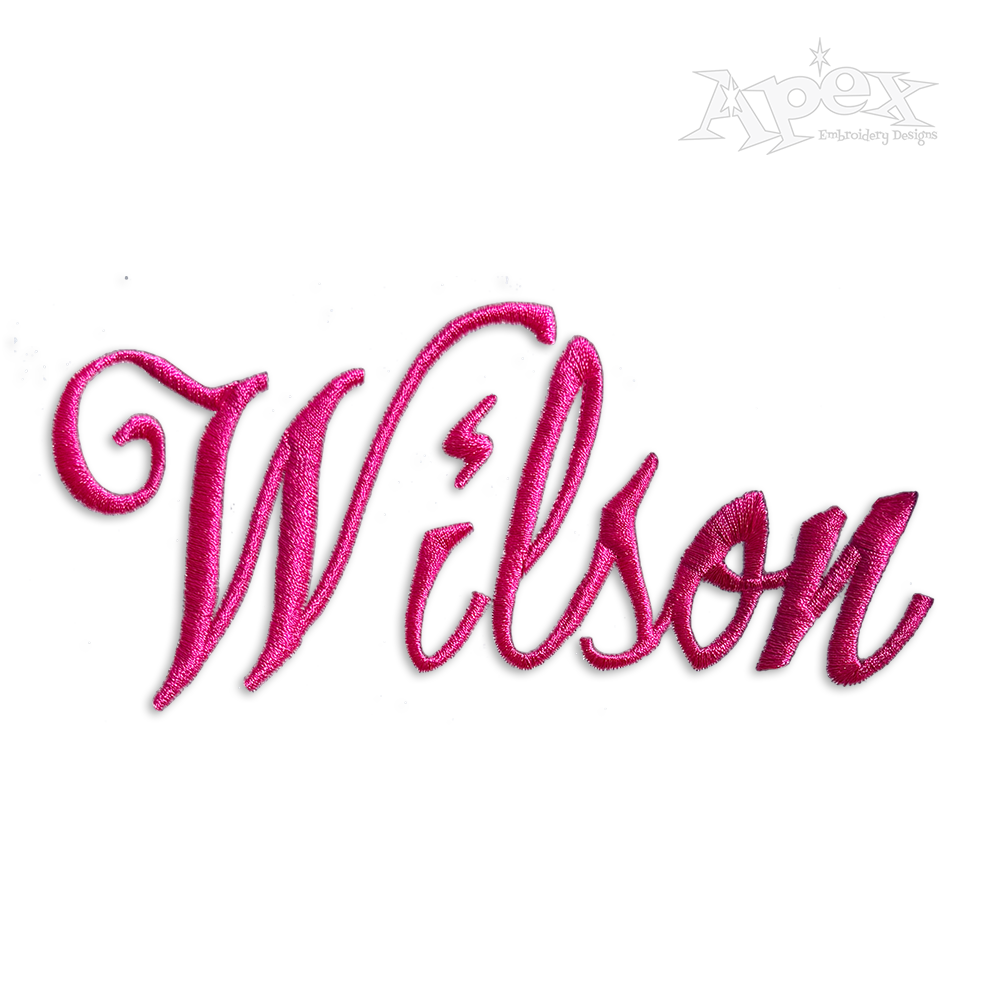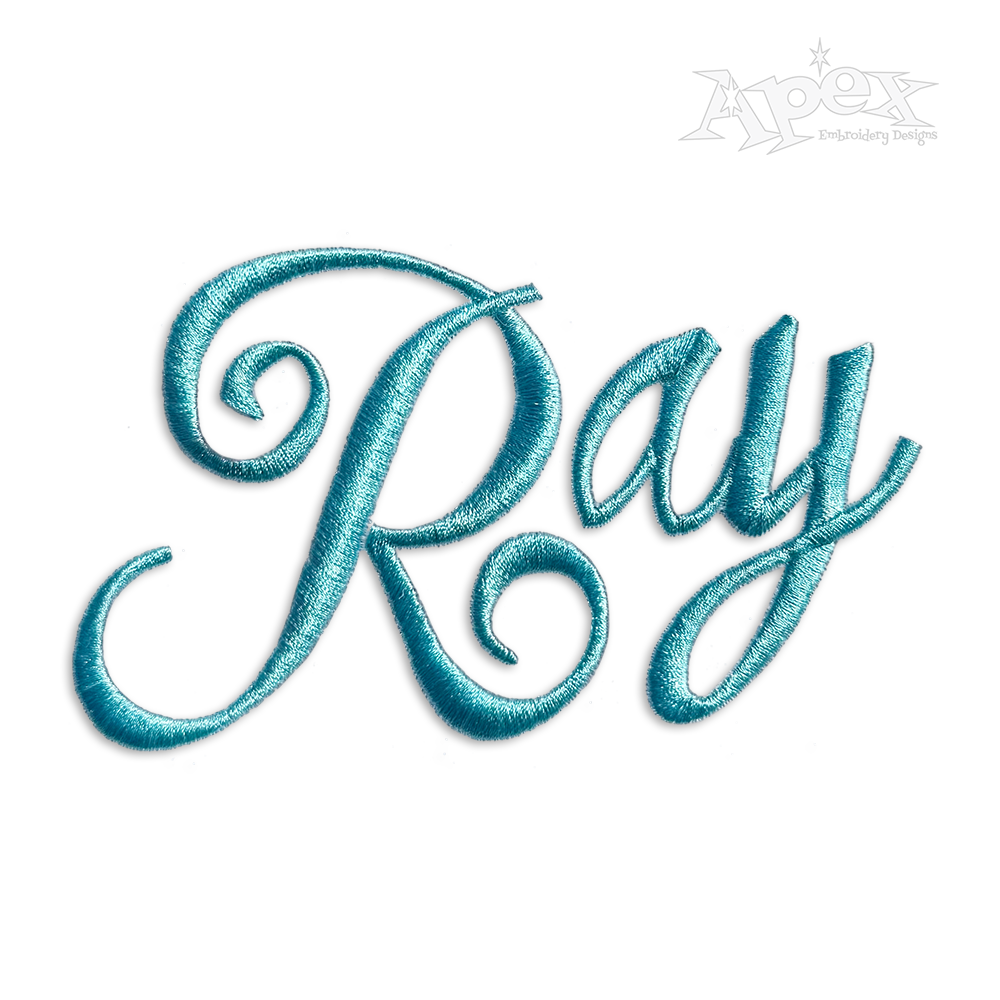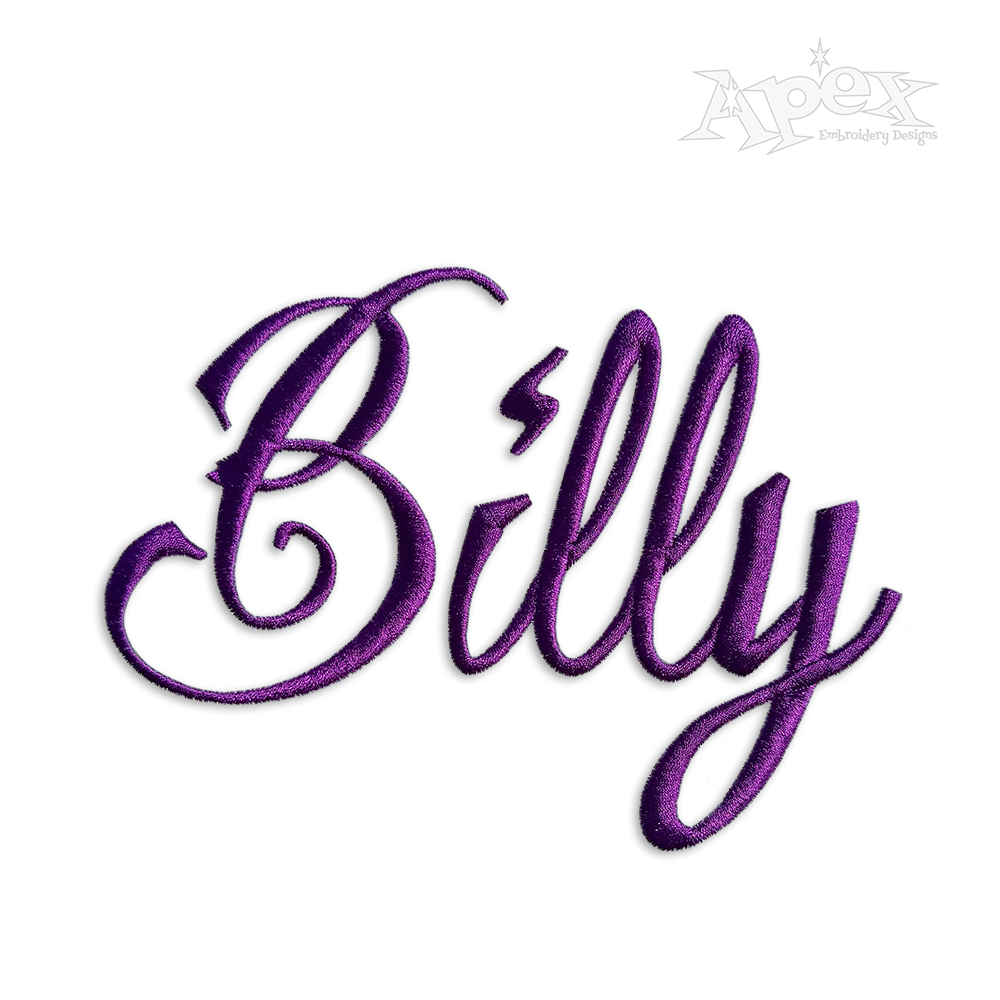
Script Awesome Embroidery Font
There is an effortless, rhythmic exuberance in modern calligraphy that instantly transforms everyday textiles into tailored keepsakes. When digitizing the Script Awesome Embroidery Font, our vision was to capture the spirited sweep of a fine-nib brush pen while engineering the clean structural tension required for flawless satin stitch embroidery. Every arch, baseline curve, and fluid connector balances casual charm with poised elegance, breathing radiant vitality into bespoke resort wear, custom monogramming, and timeless heirloom creations.
To provide exceptional versatility across both delicate personal accents and bold focal monograms, Script Awesome has been meticulously digitized in three purposeful scales. Each set provides the complete uppercase and lowercase alphabets, manually calibrated for impeccable stitch density and smooth pathing across your favorite machine embroidery setups:
- 1.0 Inch Alphabet: Proportionally refined for understated monograms, shirt cuffs, tailored collars, and infant keepsake wear.
- 2.0 Inch Alphabet: The classic mid-scale favorite, offering magnificent legibility and satin luster for linen napkins, decorative hand towels, and vanity pouches.
- 3.0 Inch Alphabet: A dramatic, eye-catching scale crafted to grace bridal party robes, resort tote bags, denim jackets, and heirloom pillow shams.
Project Ideas for Script Awesome
The lively yet polished cadence of this alphabet makes it exceptionally adaptable across modern and classic home decor, celebration wear, and personalized gifting:
- Heirloom Table Linens: Stitch crisp family monograms or full surnames across Belgian linen runners and hemstitched cocktail napkins for unforgettable dining hospitality.
- Bridal & Honeymoon Attire: Adorn silk lounge sets, bridal robes, and canvas honeymoon luggage with sweeping modern cursive that photographs breathtakingly.
- Bespoke Resort & Weekend Wear: Personalize linen button-downs, cotton sun hats, and terry beach towels with a sun-drenched, carefree script aesthetic.
- Nursery Keepsakes: Embroider full first names across soft pique blankets, baby knit cardigans, and memory quilts with smooth, tactile gentleness.
To showcase the fluid movement of Script Awesome to its greatest advantage, consider these artisan-tested placement compositions:
- Corner Diagonal on Table Linens: Angle names or initials at a 45-degree bias, resting 1.5 to 2 inches from the hemline corner to create a refined European drape.
- Centered Chest & Robe Placements: When arranging names on loungewear or hoodies, position the center of the wordmark 7 to 9 inches down from the shoulder seam for natural ocular balance.
- Sleeve & Cuff Personalization: Using the 1-inch size, align initials along the wrist edge of dress shirts or pajama cuffs for an intimate, bespoke detail.
- Tote Pocket Accents: Center the 3-inch initials on open slip pockets or the upper canvas panel, leaving generous negative space around the flourishes for maximum impact.
Script Awesome Craft & Letterform Details
What distinguishes Script Awesome under the needle is its masterfully calibrated stitch direction and organic connection points. Each lowercase letter features generous, sweeping entry and exit strokes designed to nestle beautifully against its neighbor without creating bulky overlap knots. The capitals boast playful, expressive loops that command attention without overpowering accompanying text.
Beneath the gleaming, high-luster satin stitches lies an intentional architectural foundation: tailored underlay stitching prevents thread sinking into high-pile fabrics, while intelligent push-and-pull compensation preserves the roundness of the loops and the razor-sharp taper of every terminal flick. The result is a stitch-out that runs smoothly from start to finish, yielding a supple, touchable embroidery finish that reflects pure artisan pride.